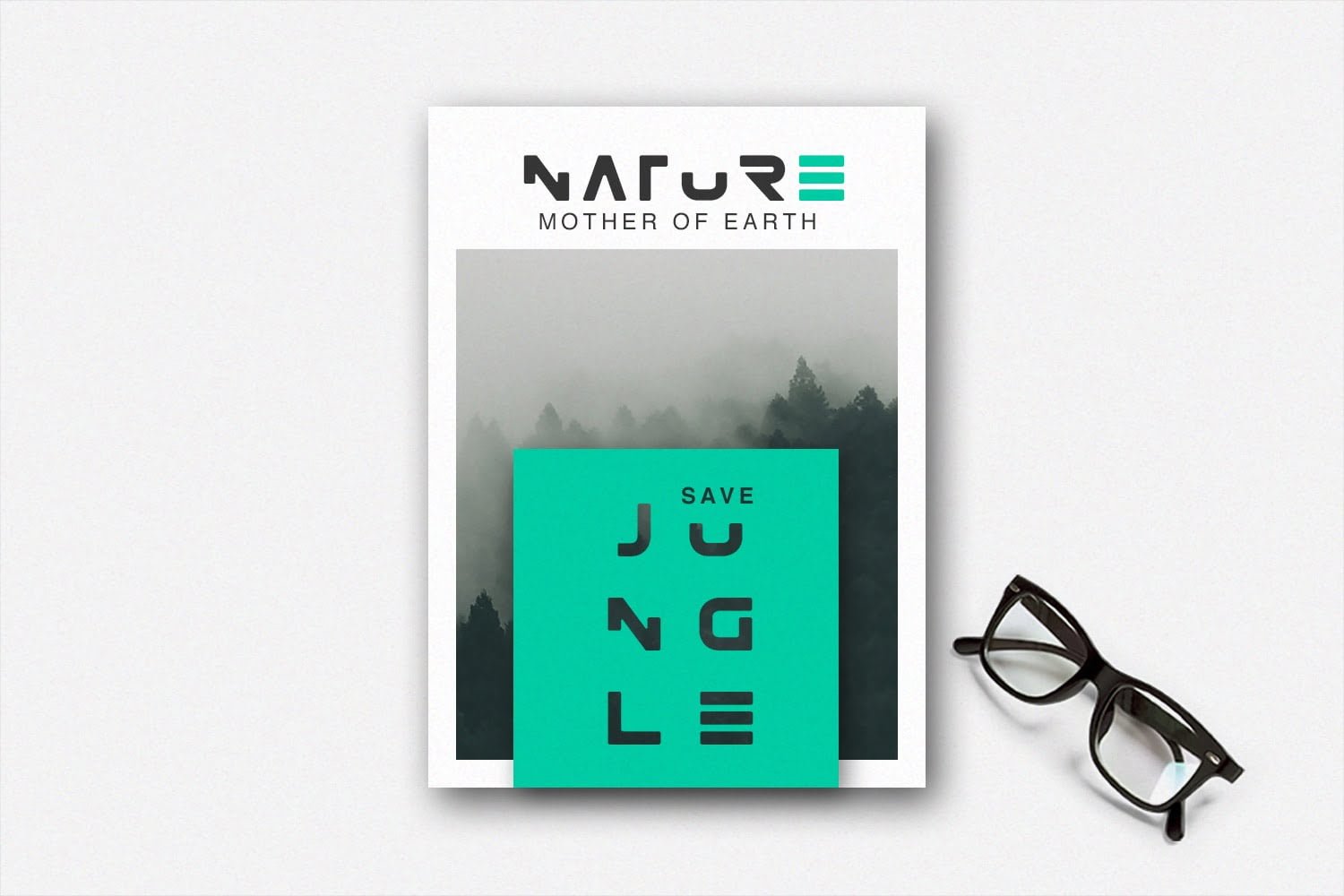
Introducing a powerful, contemporary sans serif typeface called Ichiji Font Duo. Perfect for a variety of projects, including quotes, blog headers, posters, weddings, branding, logos, clothing, letters, invitations, stationery, and many more.
Ichiji Futuristic Font